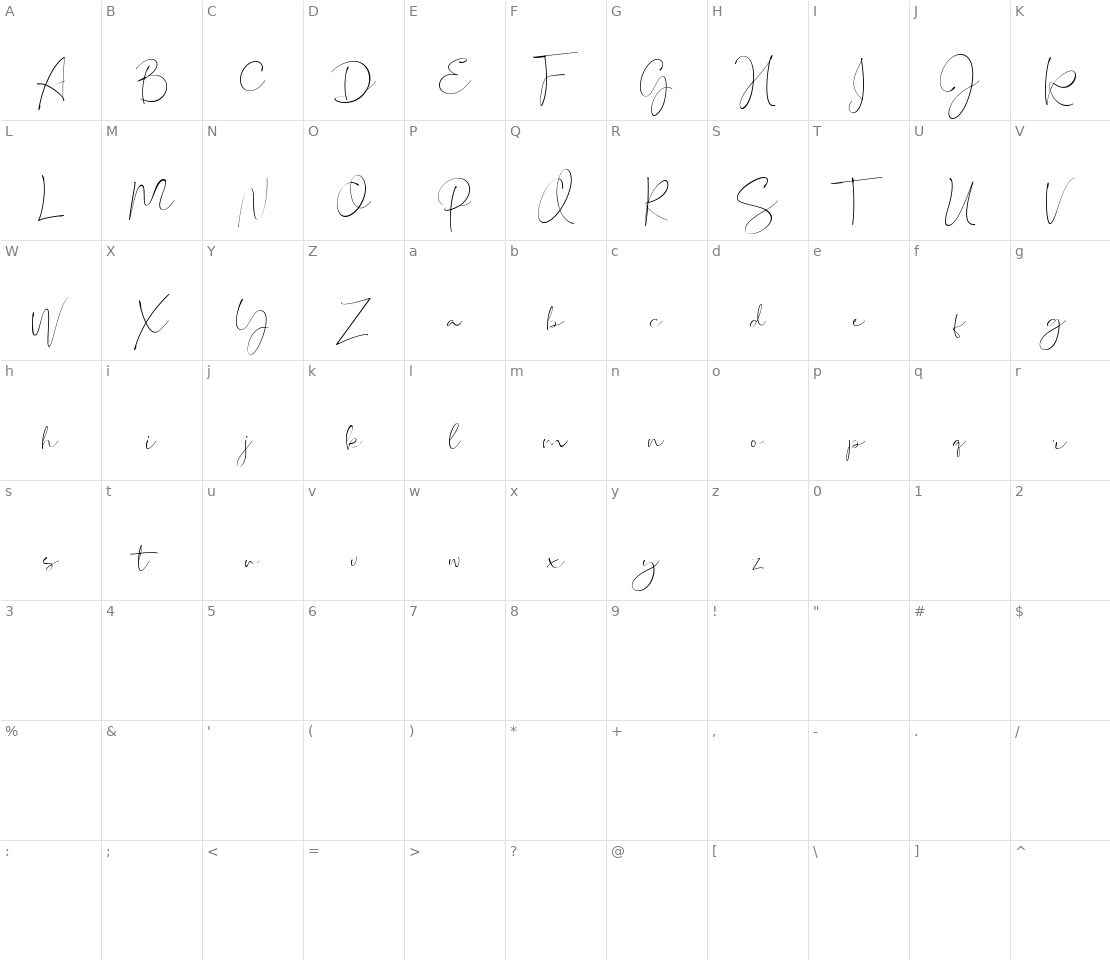
Restacts
Restacts is a lightweight signature script from Nfajry Redy with thin, flowing strokes that feel personal and unhurried. The letterforms balance elegance with a casual looseness, keeping it from looking overly formal while still reading as refined. A natural pick for wedding stationery, branding, and editorial layouts where you want something delicate and modern with a handwritten warmth.